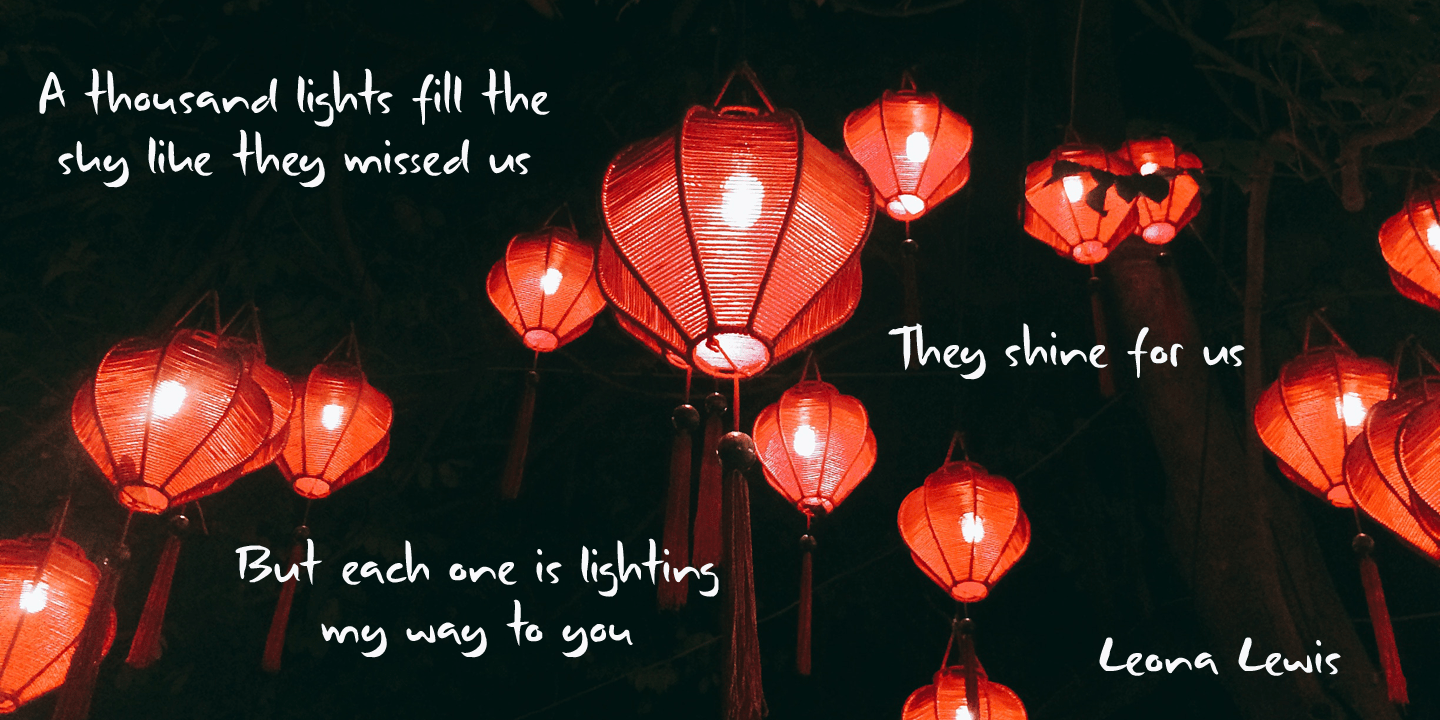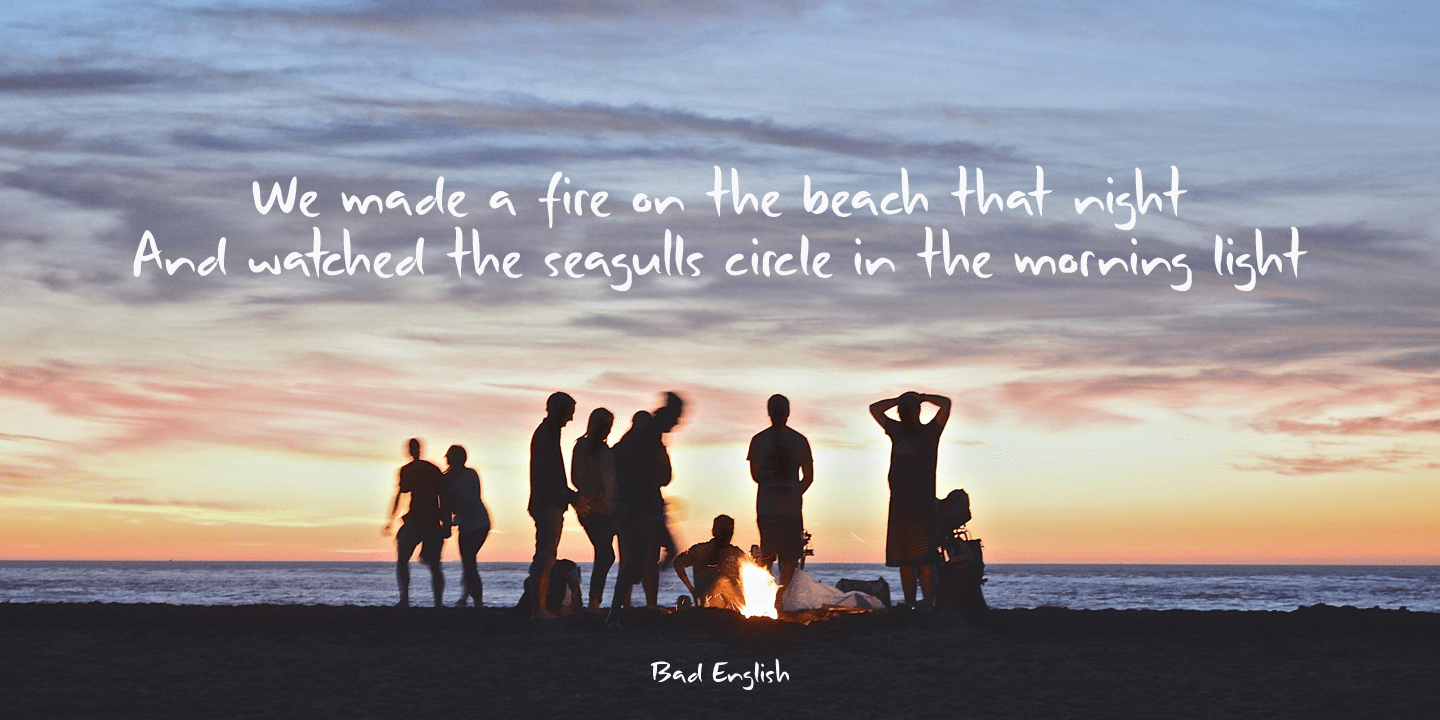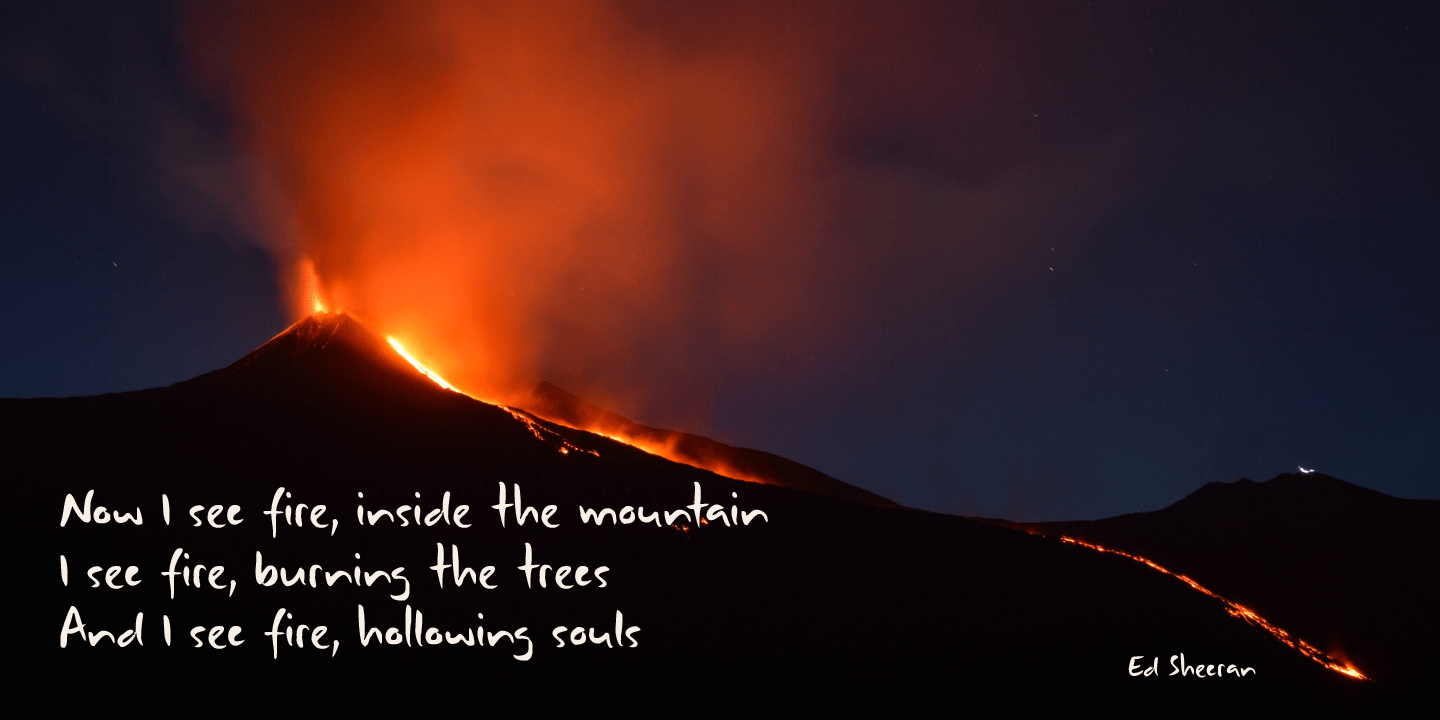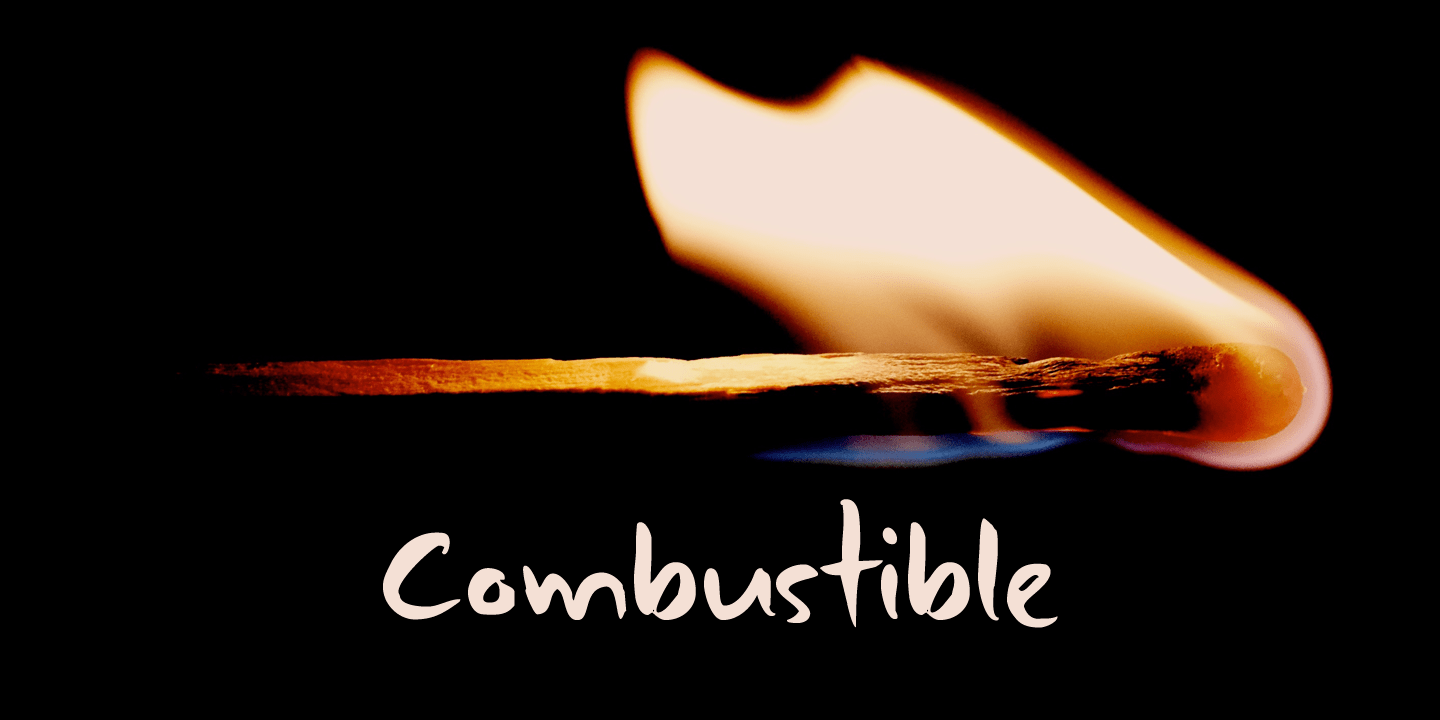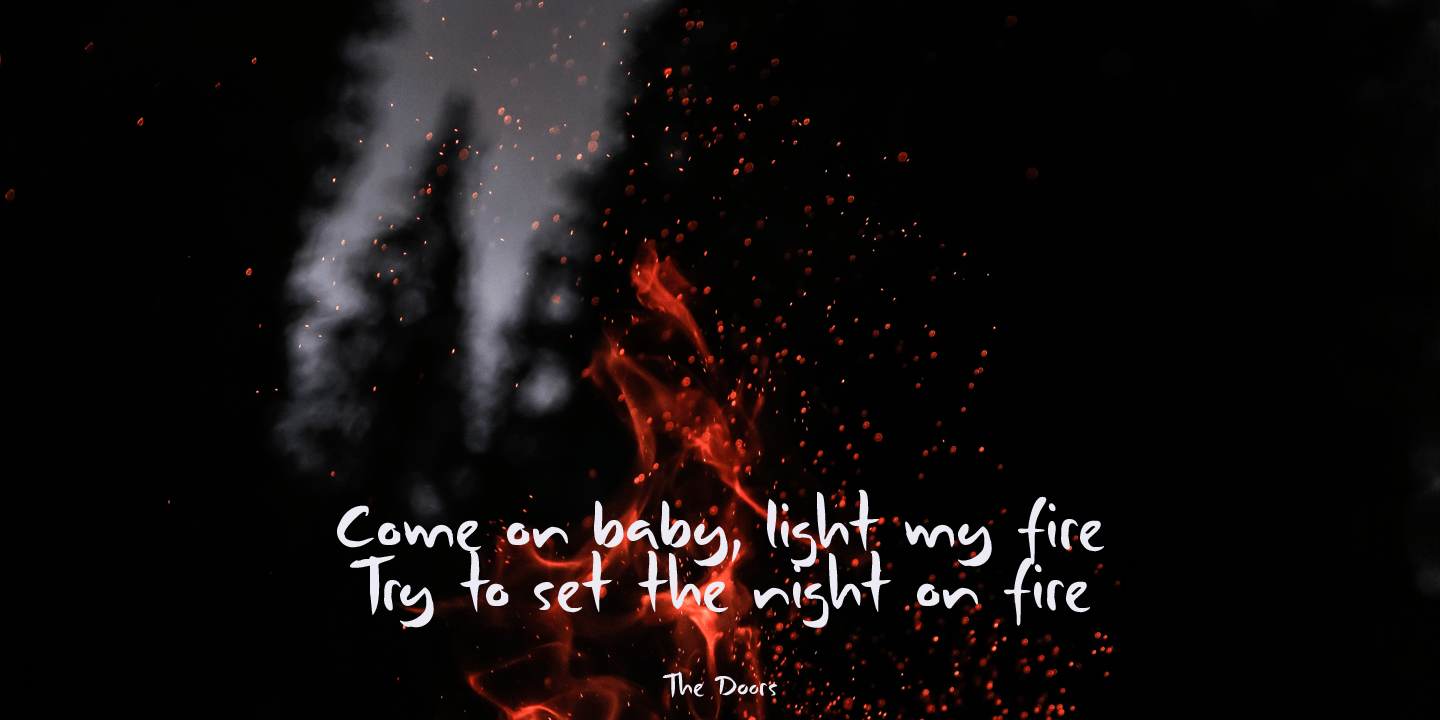
Combustible
About Combustible
Combustible is a hot, handwritten script font. I don\’t really know why I named it Combustible – maybe because I scribbled this one down with near frozen hands. Combustible was made with a medium sized Japanese brush pen. It is a messy script, yet highly…